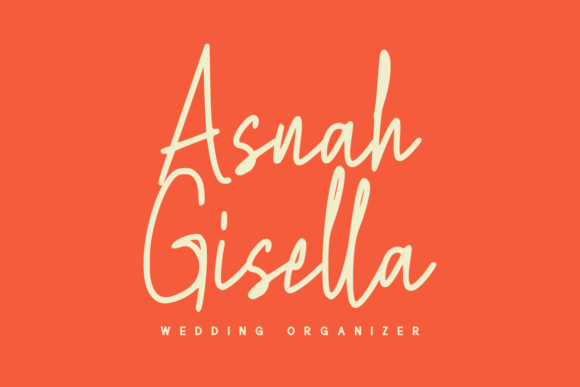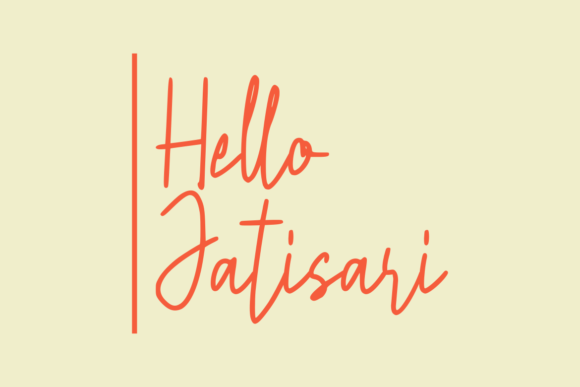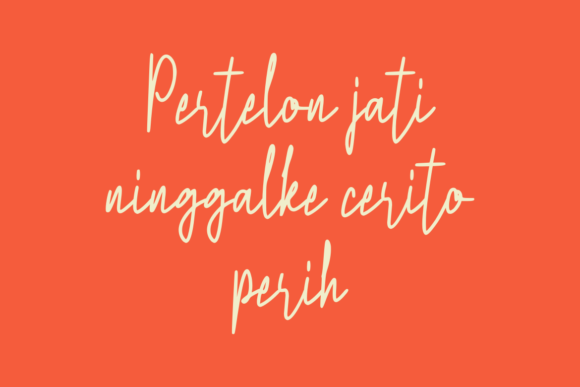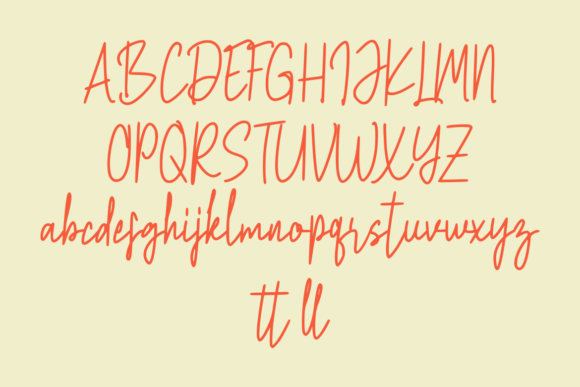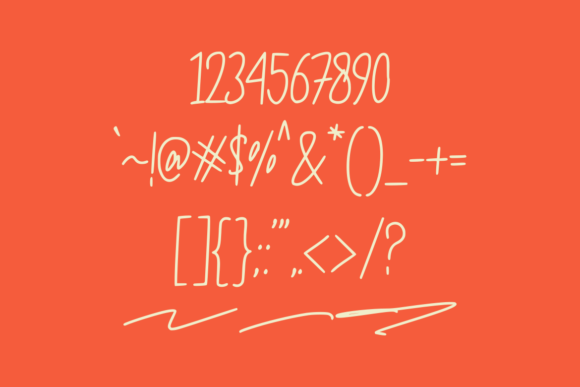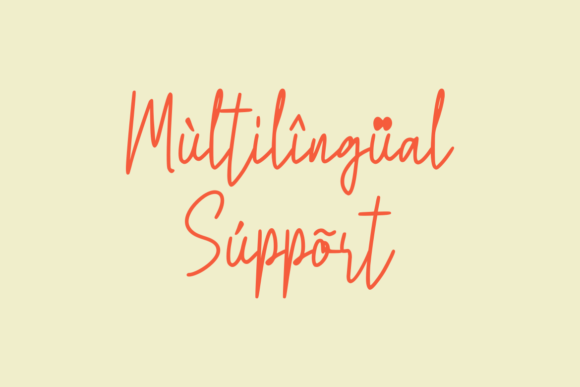
Introduction to Bolah Signature Font
Bolah Signature is a magical script font carefully created with a touch of elegance.
Key Features of Bolah Signature Font
Why Choose Bolah Signature Font?
Bolah Signature Font offers exceptional quality and versatility, making it a valuable addition to your design toolkit. Whether you’re creating for personal projects or commercial use, Bolah Signature Font delivers professional results.